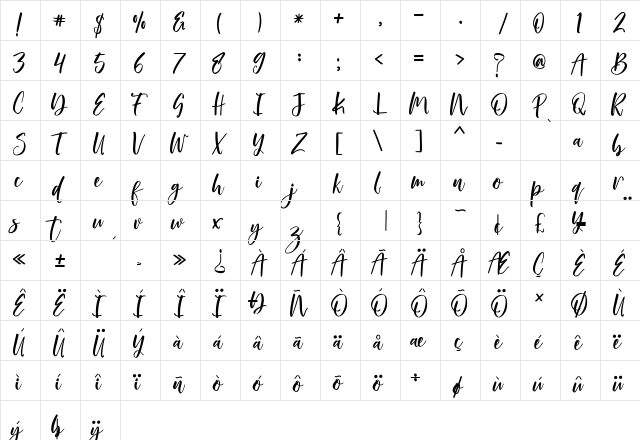
wild smith Regular
| Foundry | Lucky Type |
| Designer | Lucky Type |
Design Context for wild smith Typeface
wild smith is a composed and adaptable typeface that performs quietly and consistently across a wide range of design contexts.